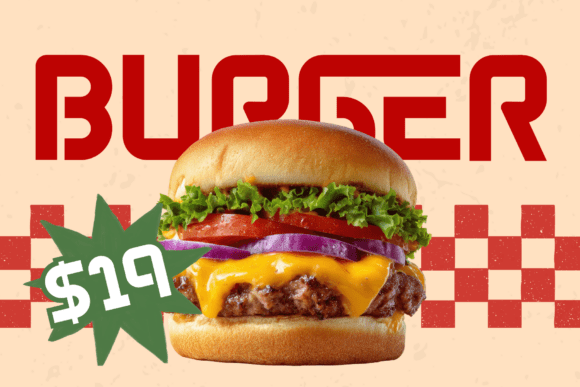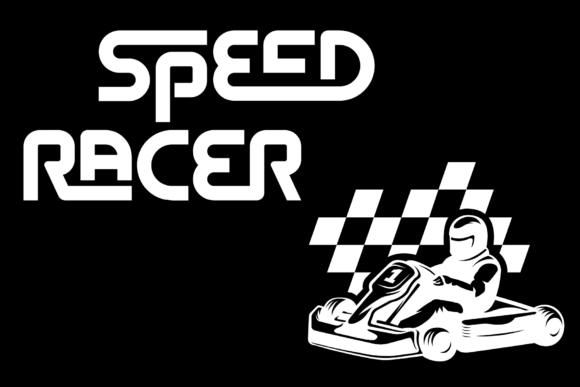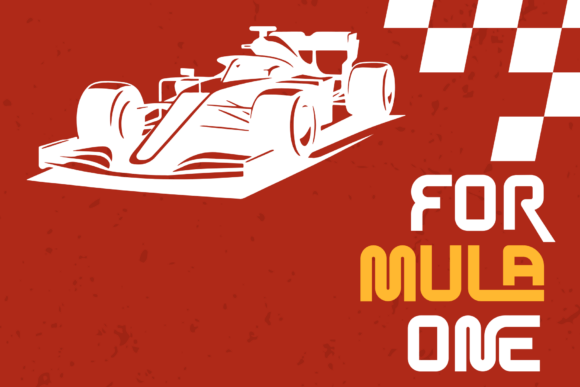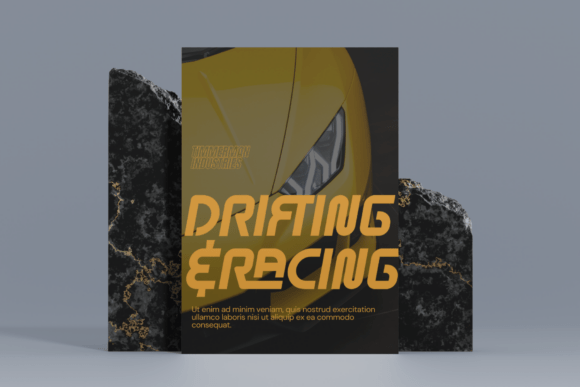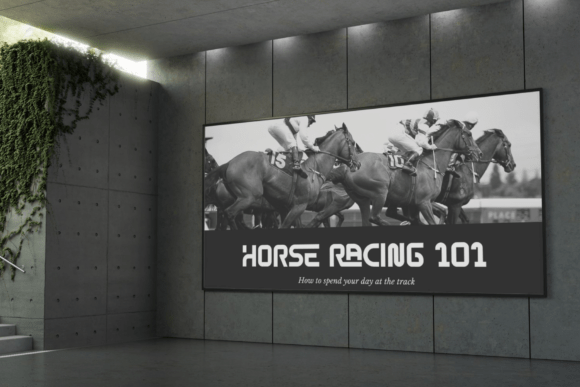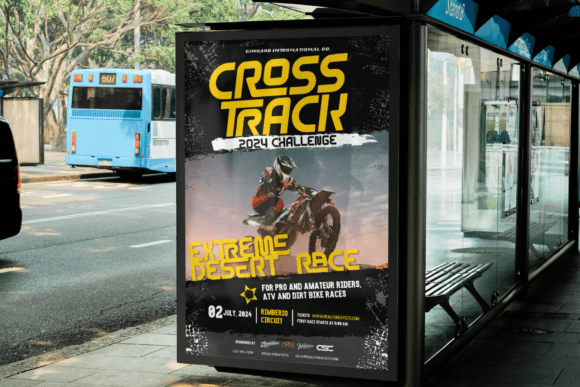
Introduction to Remazer Font
Imagine you’re designing a poster for a local baseball game, and you want to capture the excitement and energy of the event. You’re browsing through font options, and suddenly, you stumble upon the Remazer Font. Its bold, wide characters transport you to the classic dugout signage of the past, evoking a sense of nostalgia and authenticity. This is what makes the Remazer Font so special – it’s not just a font, but a design resource that can elevate your creative project to the next level.
As a designer, you’re always on the lookout for high-quality fonts that can help you convey your message effectively. The Remazer Font is a valuable addition to any design arsenal, offering a clean and impactful look that works perfectly for both modern and retro design styles. With its transparent background and free download option, it’s an excellent choice for designers who want to add a touch of authenticity to their creative projects.
Key Features of Remazer Font
- Unique and creative design ideal for various creative projects, such as graphic design, web design, and digital art.
- Features a transparent background, allowing for seamless integration with various backgrounds and designs.
- Supports a wide range of languages, making it a versatile font for international design projects.
- Perfect for use in digital and print media, including social media graphics, logos, and advertisements.
Honest Review: Remazer Font
I recently stumbled upon the Remazer Font, and I’m excited to share my thoughts on this design resource. As a designer, I’m always on the lookout for high-quality fonts that can elevate my creative projects.
- High-quality design: The Remazer Font is well-crafted and visually appealing, making it perfect for a wide range of creative projects.
- Transparent background: The transparent background option allows for seamless integration with other design elements.
- Limited character set: I found that the font only includes a limited character set, which may not be suitable for projects requiring a wide range of languages or special characters.
Overall, I’m impressed with the Remazer Font’s potential to enhance my creative projects. While it may have some limitations, its high-quality design and free download make it a valuable resource for designers. I’ll definitely consider using it in my future projects.
How to Use Remazer Font
The Remazer Font is a high-quality, free download design resource perfect for creative projects. With its unique style and transparent background, it’s ideal for designers looking for a versatile font.
Tips for Getting the Most Out of Remazer Font
To get the most out of the Remazer Font, experiment with different font sizes, colors, and combinations to create unique and eye-catching designs.
The Remazer Font is perfect for creating graphics, logos, and text overlays for social media, marketing materials, and other creative projects. Its transparent background makes it easy to combine with other design elements.
Alternatives to Remazer Font
Compared to Remazer Font, Aleo offers a more traditional and classic feel, making it suitable for a wide range of creative projects.
Montserrat is a modern sans-serif font ideal for creative projects that require a clean and minimalistic look. It’s free to download and offers a high-quality design resource for designers and developers.
Compared to Remazer Font, Montserrat has a more urban feel, making it suitable for use in creative projects that require a modern and edgy look.
Playfair Display is a luxurious and elegant script font perfect for creative projects that require a high-end look. It’s ideal for use in design, publishing, and advertising where a refined, transparent background is desired.
Is the Remazer Font suitable for high-resolution designs?
Yes, the Remazer Font is designed to be high-quality and scalable, making it perfect for high-resolution designs. Whether you’re working on a web design project or a print design project, the Remazer Font will deliver crisp and clear typography that enhances the overall visual appeal of your design.